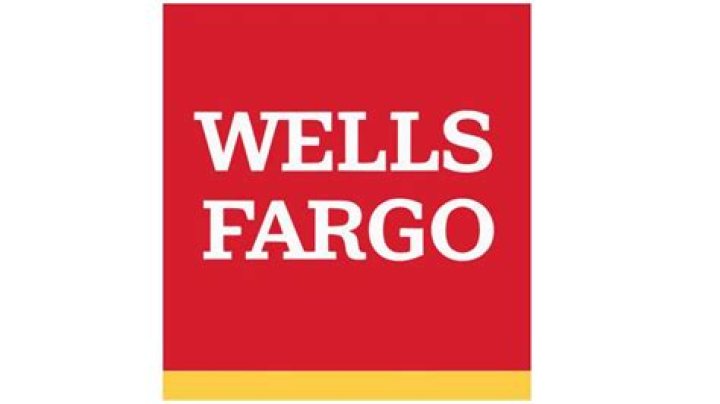
What font is the Wells Fargo logo?
Clarendon Bold is the font used in the Wells Fargo logo.
What kind of logo does Wells Fargo have?
The newer Wells Fargo logo is a simple a red square text written in a yellow font on it. But the situation is entirely different when talking about the classic six-horse stagecoach logo. Initially, back in the 1850s, Wells Fargo consisted of an express delivery system.
Why did Wells Fargo choose the red color?
Initially, the use of red color was considered heretical by the finance community, but with the passage of time, it has been understood that it clearly gave the company a clear, passionate and unique identity as compared to those of most financial institutes that contain the blue color.